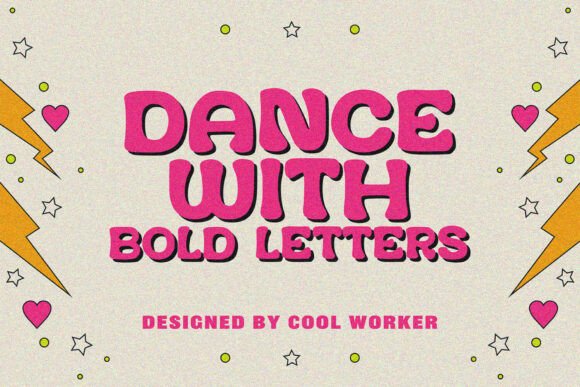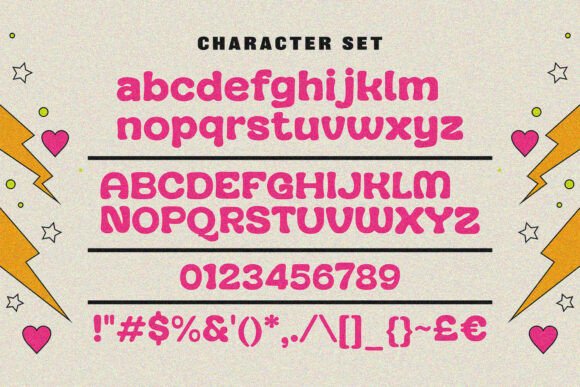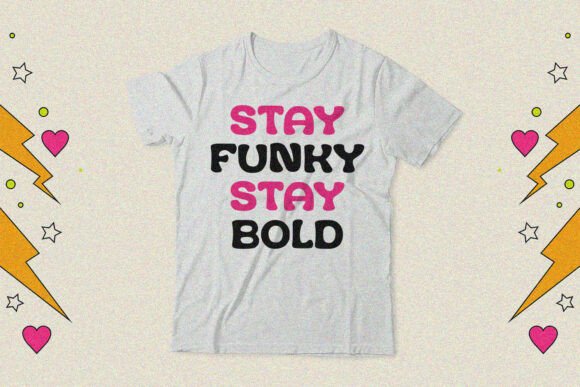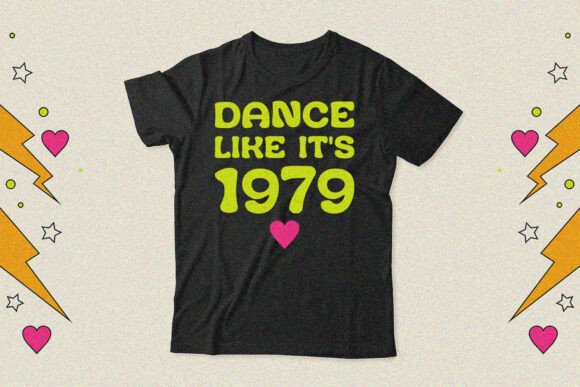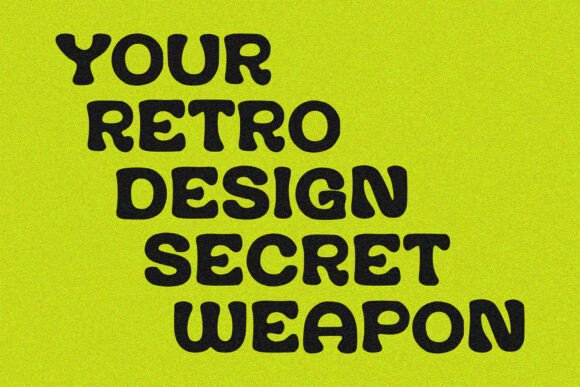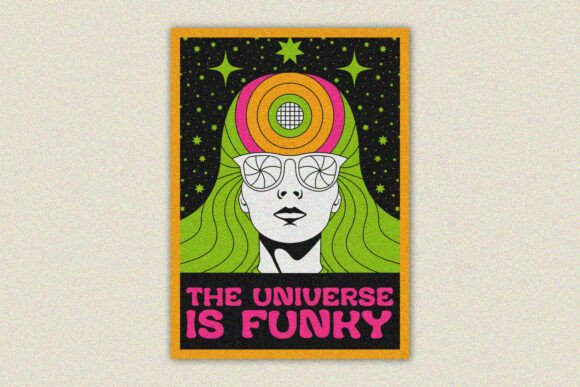
Get Ready to Groove with the Boldisco Font
Remember the thrill of creating that perfect design, the one that captures the essence of your vision and leaves a lasting impression on your audience? For designers, that moment of pure creative joy is what drives us to push the boundaries of innovation and style. And for those looking to make a statement, the Boldisco Font is here to help.
This retro-inspired display font is more than just a trendy addition to your design arsenal – it’s a game-changer. With its bold curves, smooth lines, and playful rhythm, Boldisco Font captures the vibrant spirit of the 70s disco era while staying fresh and modern for today’s designs. Whether you’re aiming for a vintage aesthetic or want to inject some playful funk into your work, the Boldisco Font delivers the perfect balance of boldness and flair.
Boldisco Font Key Features
- Unique Characteristics: The Boldisco Font features a unique blend of modern and vintage elements, making it perfect for creating eye-catching headlines and titles.
- Font Family: The Boldisco Font is part of a comprehensive font family, offering a range of styles and weights to suit different design needs.
Designer Review: Boldisco Font
Overall, I was pretty excited to dive into the Boldisco Font, and for good reason. ✨ The bold and playful style is perfect for grabbing attention and adding some personality to your designs. The font is highly customizable, allowing you to tweak the weight, width, and even add some flair with the decorative ornaments. ✨ The OpenType features also make it a great choice for professional projects.
That being said, I do have a few reservations. ⚠️ One of the main limitations is the lack of a light weight option. While the bold and regular weights are great for making a statement, a lighter weight would have been a nice addition for when you need a bit more subtlety. ⚠️ Additionally, some of the glyphs, particularly the lowercase letters, can feel a bit inconsistent in terms of spacing and shape.
In terms of overall impression, I would say that the Boldisco Font is a solid choice for designers looking to add some bold and playful elements to their work. While it may not be perfect, the font’s strengths far outweigh its weaknesses, and with a bit of tweaking, it can be a real showstopper.
Key Pros:
- Perfect for making a statement
- OpenType features for professional projects
Key Cons:
- No light weight option
- Inconsistent glyph spacing and shape
Tips for Getting the Most Out of Boldisco Font
Use Boldisco Font for headings and titles to add a touch of elegance and sophistication to your designs.
Experiment with different font sizes and styles to create visual interest and hierarchy in your designs.
Boldisco Font is perfect for:
- Corporate identity design
- Wedding and event invitations